What your essay font says about your personality
Comic Sans users are all virgins
Well done on getting all those essays in on time. Bet you’re feeling pretty glad that all those deadlines and sleepless nights are behind you for the time being, right? Well you shouldn’t.
It doesn’t matter if you actually read the course material, it doesn’t matter if you got your Dad to proof it, it doesn’t matter if you’ve got a bibliography longer than the entire extended edition of The Lord of the Rings Trilogy.
If your essay is in a stupid font, then you’re lecturer is going to hate it. And what’s more, they’re going to judge you for using that font. And they’re probably going to think you’re a twat.
Times New Roman
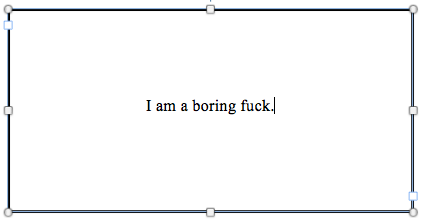
If you type your essays in Times New Roman, then all you’re saying is that you’ve never really taken a chance on anything. “If it worked in 1996, then it’ll work today,” the Romans cry. Sound logic, but when did you become such a bland little Hobbit?
Times New Roman is the Vanilla extract, the gouda cheese, the English Breakfast, the Honda-driving Uni-Qlo shopper of fonts. You’re trying so hard to fit in that you risk becoming completely invisible.
Legibility: 10
Attention-Grabbing Factor: 2
Popularity: 5
Corresponding Sex Position: Missionary
Twat.
Calibri
When Microsoft Word made Calibri its default font in 2007, it was to fans of this typeface what 2013 was to fans of Arrested Development. Suddenly their beloved indie font that no one knew about besides them rocketed into the mainstream. Suddenly, everyone was talking about it. Gone was your feeling of superiority and your smug assurance that your way was the best way.
Calibri hipsters are forever embittered that the popular conscience caught up with them, and will remind you at every turn that they were smashing out their A-Level papers in Calbiri before it was cool.
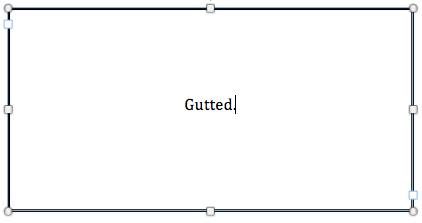
Legibility: 8
Attention-Grabbing Factor: 6
Popularity: 10
Corresponding Sex Position: Doggy
Arial
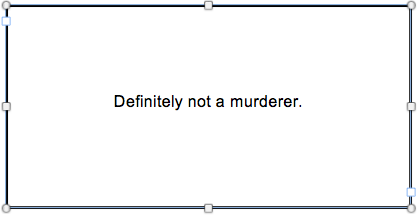
Anyone who types using Arial is untrustworthy. It has the jet-black heart and calculated curves of apex predator, while maintaining that boring, mechanical appeal which makes the reader feel not as though they are digesting a thoughtful intellectual thesis, but rather watching the steady click-clack of that Newton’s Cradle this office-psychopath of a font definitely keeps on its desk.
This is the front used by Christian Grey, George Osborne and The Terminator. Always slightly too small, and always slightly too thin, avoid association with this font if you don’t want your tutor to assume that you spend your weekends torturing small animals.
Legibility: 4
Attention-Grabbing Factor: 4
Popularity: 4
Corresponding Sexual Position: Piledriver
Mega twat
Baskerville
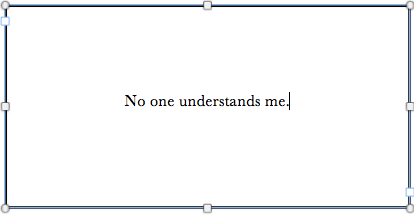
Oh my, look how edgy you are. You give all your assignments artistic borders and caligraphic cover letters, too. If you’re a History Student, you write about genocides. If you’re an English Student, you write about the Gothic. If you’re a philosophy student, you write about nihilism. And if you’re a politics student then you also write about genocides.
You need your tutors to know how deep you are buried in the dark and grimy detail of the topic. You need them to know that you are made for this subject – and this subject is dark. If any font wore eyeliner, it’d be this one. For this font, it wasn’t just a phase. This font kept its emo fringe after 2004, just so that nothing could distract from gazing at its own navel and its favourite film is Nosferatu. Get a grip, Baskerville.
Legibility: 6
Attention-Grabbing Factor: 10
Popularity: 2
Corresponding Sex Position: Circle-Jerk
Comic Sans
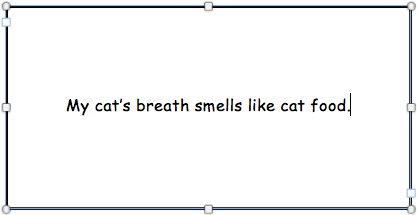
We’re not at primary school any more, mate. Type like an adult. Yes, with all ten fingers and everything. Comic Sans is a font that even those kids at nursery who eat their Play-Doh find a little patronising. Your tutor is probably isn’t going to love you for using it.
Legibility: 3
Attention-Grabbing Factor: 9
Popularity: 1
Corresponding Sex Position: Perpetual, incurable virginity
Twat of the year
Windings
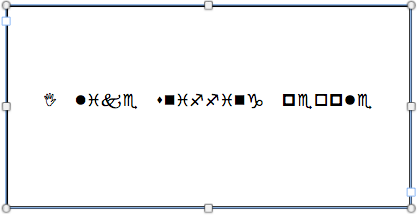
You are a godless lunatic. Why would you attempt this? What point are you even trying to make? Is there any point asking you? Or is my answer just going to be ‘two sperms and a lightening bolt’? There is no help for you. You are the student who every tutor dreads. Go study Ecopoetics, you madman.
Legibility: N/A
Attention Grabbing Factor: N/A
Popularity: 0
Corresponding Sex Position: Wheelbarrow